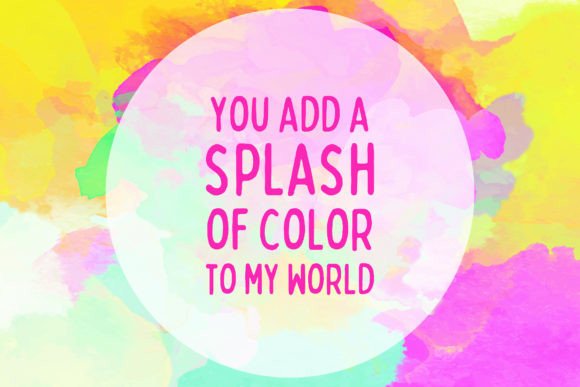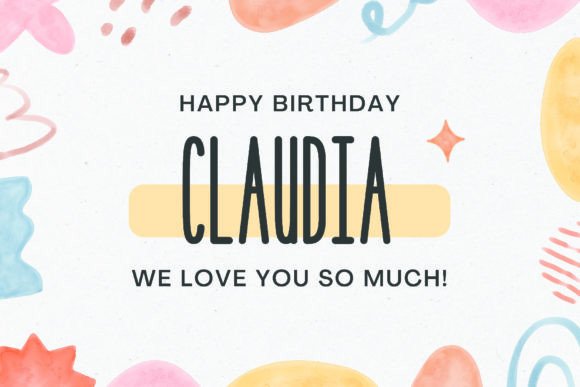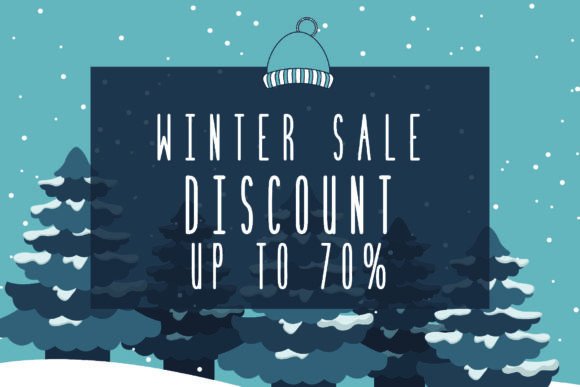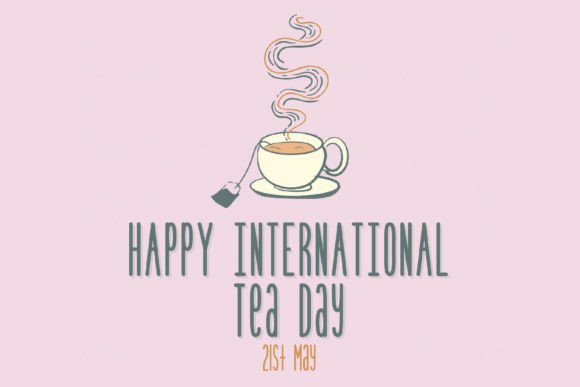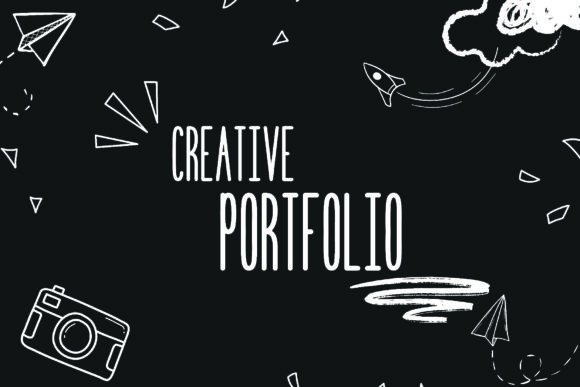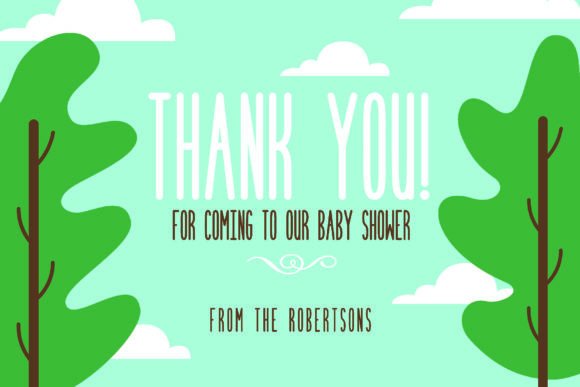
Unlock the Magic of Childhood in Your Designs
Do you ever find yourself doodling in the margins of a meeting notebook or sketching out ideas on a coffee shop napkin? Those moments of creative freedom are the spark that can ignite a new project or inspire a fresh perspective. For designers, these flashes of inspiration can be the key to unlocking a truly unique and engaging visual identity.
That’s where the All Grown Up Font comes in – a playful sans font designed to bring a sense of fun and whimsy to your designs. Perfect for children’s books, casual branding, and light-hearted projects, this font’s bold, playful style captures the spirit of creativity and joy. By incorporating the All Grown Up Font into your work, you can add a touch of magic and playfulness that will leave a lasting impression on your audience.
All Grown Up Font Key Features
- Font Family: All Grown Up Font is a unique, modern sans-serif font designed for various digital and print applications.
- Unique Characteristics: The All Grown Up Font features a unique blend of geometric and organic elements, resulting in a modern, sophisticated aesthetic.
- Font Weight: The font is available in various weights, including light, regular, medium, bold, and heavy, allowing for flexibility in design applications.
All Grown Up Font Review
As a designer, I was excited to dive into the “All Grown Up Font” and see if it lived up to its name. The font has a fun and youthful vibe, making it perfect for projects that need a playful touch. ✨ I love how the font’s curves and lines work together to create a sense of whimsy and energy.
One of the standout features of this font is its versatility. It’s suitable for a wide range of projects, from children’s books to social media graphics. ✨ The font is also highly legible, making it easy to read even in smaller sizes.
- Playful and youthful vibe
- Highly legible
- Suitable for a wide range of projects
While the “All Grown Up Font” is a great addition to any designer’s toolkit, there are a few limitations to keep in mind. ⚠️ The font may not be the best choice for projects that require a more formal or professional tone. Additionally, the font’s playful nature may make it difficult to use in projects that require a lot of text.
Overall, I think the “All Grown Up Font” is a great choice for designers who want to add some personality to their projects. While it may not be suitable for every project, it’s a great option for those that need a fun and youthful vibe.
For best results, use the All Grown Up Font for headings and titles to create a visually appealing design.
For best results, use the All Grown Up Font in combination with other fonts to create a unique and stylish design.
For best results, use the All Grown Up Font for headings and titles to create a visually appealing design.
The All Grown Up Font is ideal for:
- Designing children’s book covers and illustrations.
- Creating playful and whimsical branding materials.
- Adding a touch of nostalgia to modern designs.